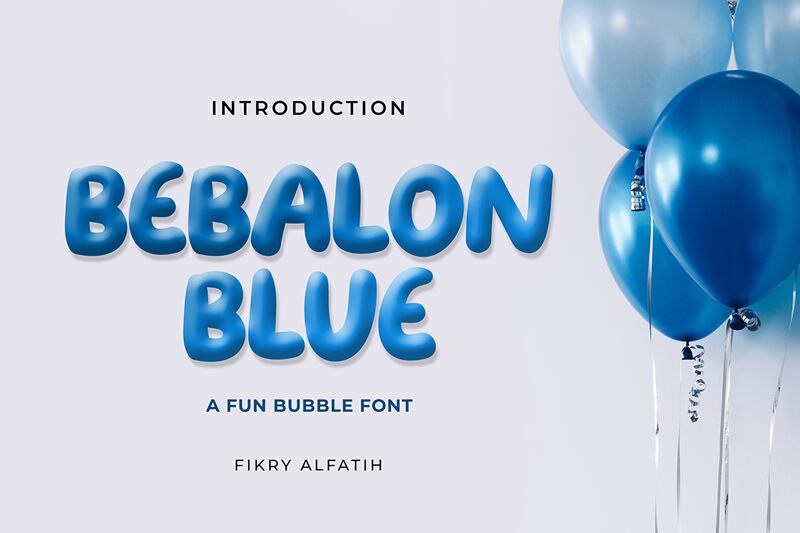
Bebalon Blue, crafted by Fikry, is a vibrant display font that exudes an irresistible charm.
With its extra-bold weight and playful cartoon style, this font is perfect for children's book covers, animated movie posters, and toy packaging designs. Its lively curves and bold strokes add a touch of whimsy to any project, making it an excellent choice for birthday party invitations or cheerful website headers.
Bebalon Blue brings your creations to life with its energetic personality and promises to captivate both young and young-at-heart audiences alike.